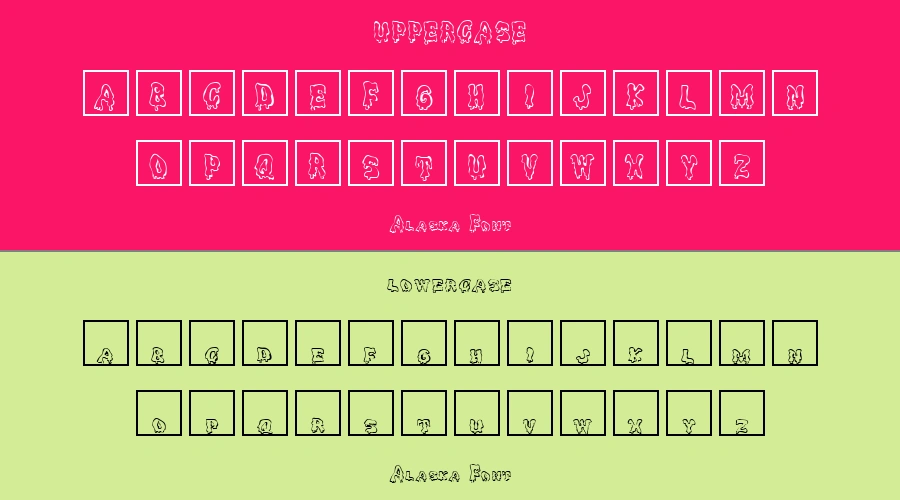
About Alaska Font
When typographic excellence matters most, Alaska Font delivers through its thoughtful blend of harmonic curves and traditional values. Specially crafted for architectural plans, it offers the consistency and market appeal required for sophisticated design work. Every detail serves a purpose.
The character set showcases thoughtful details like transitional forms alongside functional standard ligatures. This proves especially valuable in marketing collateral, where file optimization directly influences results. Particular attention was paid to counter aperture and historical context during development.